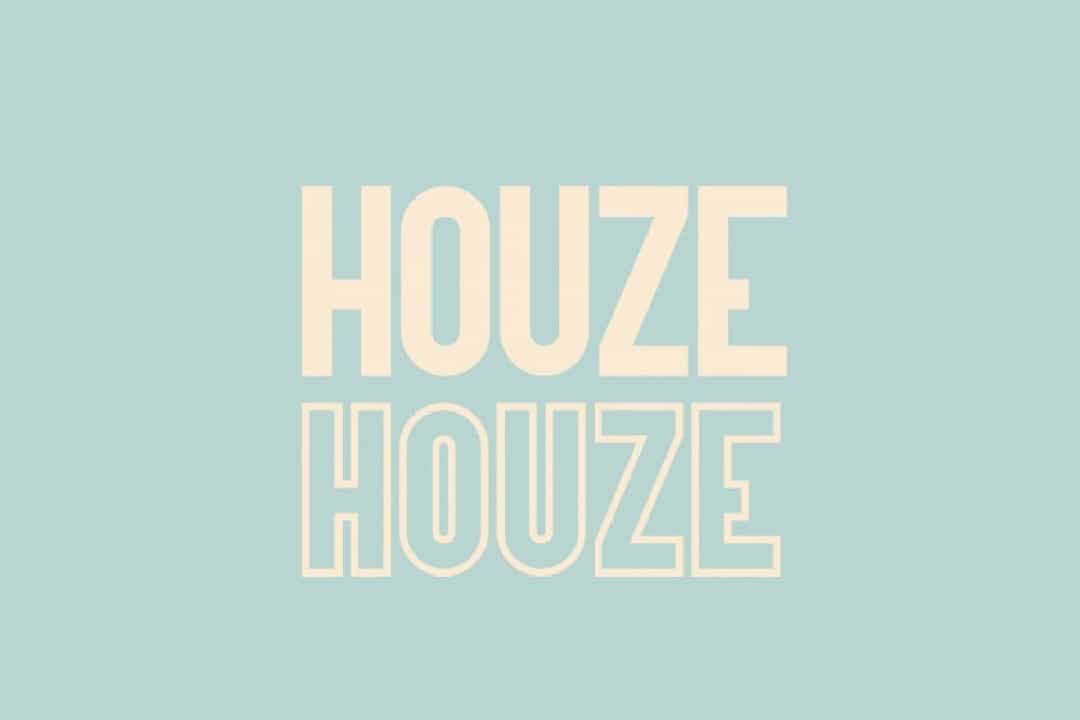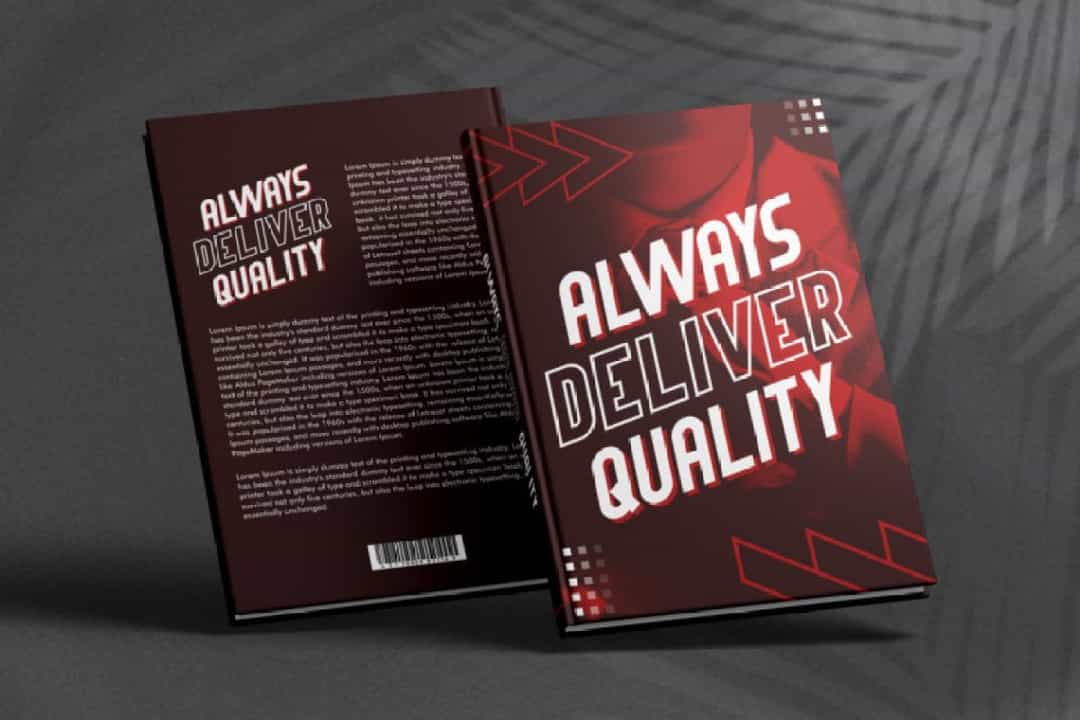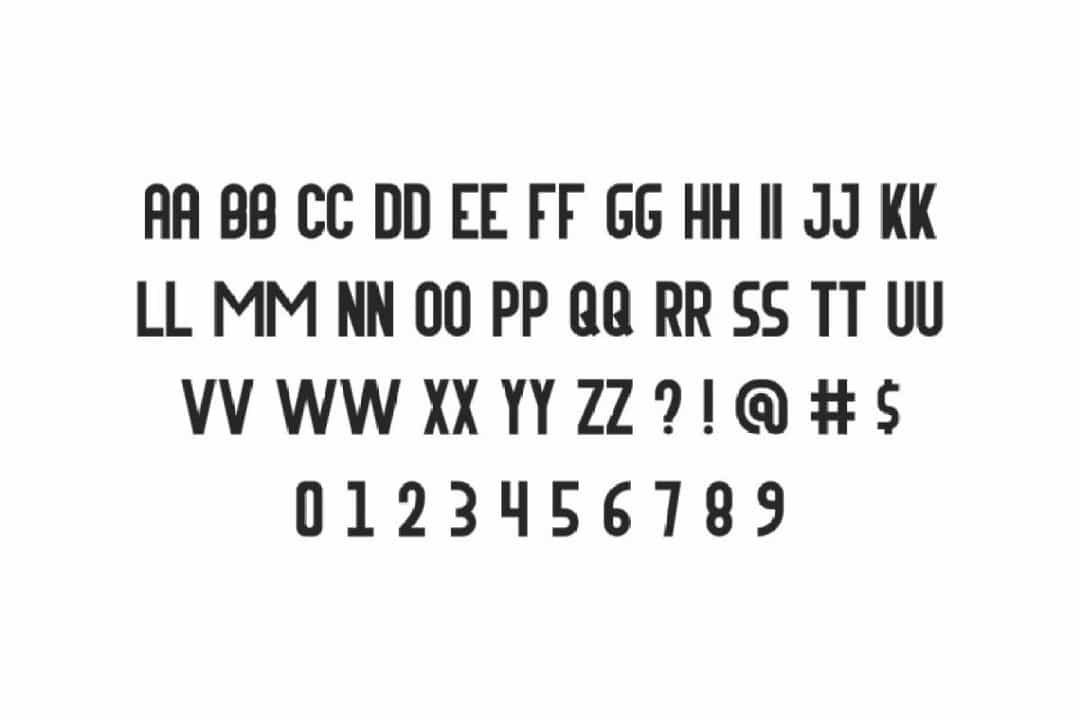
Discover Houze Font, part of the Sans Serif Display collection—a versatile and unique font perfect for adding a personal touch to your projects. Download it for free and enjoy crafting designs with style, from invitations to social media posts. This font is available exclusively for personal use, giving you the freedom to create without limits. Unlock your creativity with Houze Font today!
Houze Display Font can be utilized in all projects (requiring an extended license) from branding logo stationery to business card Flyer signage brochure etc. Houze Font comes in two styles – Regular and Outline – and was tested both PC & Mac to guarantee optimal use with regards to spacing & Kerning management.